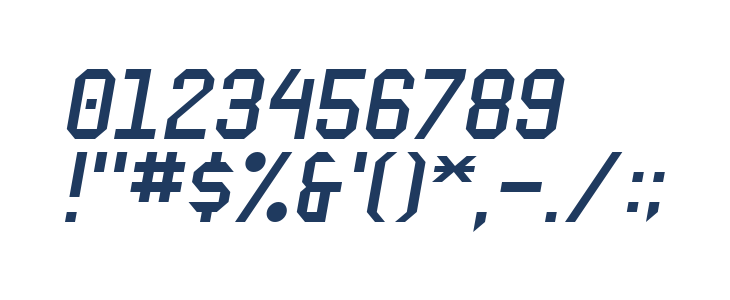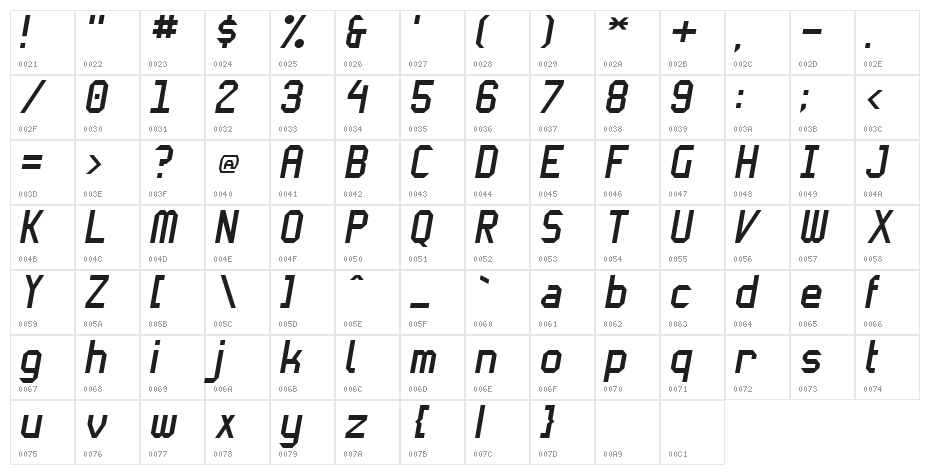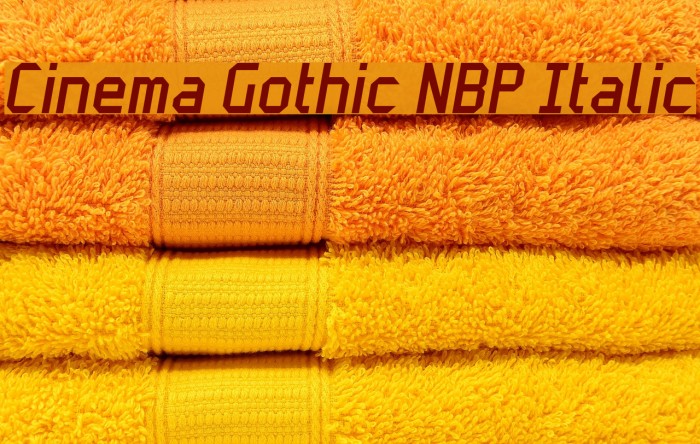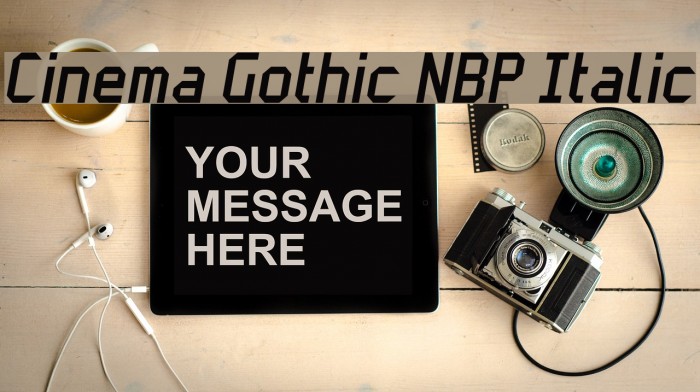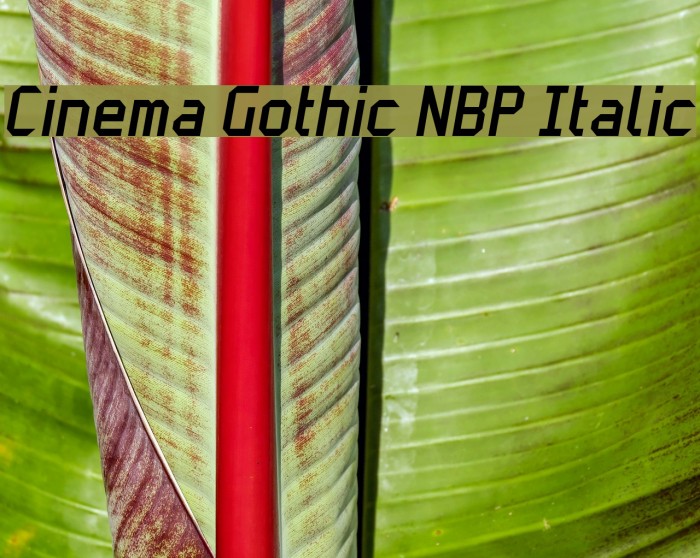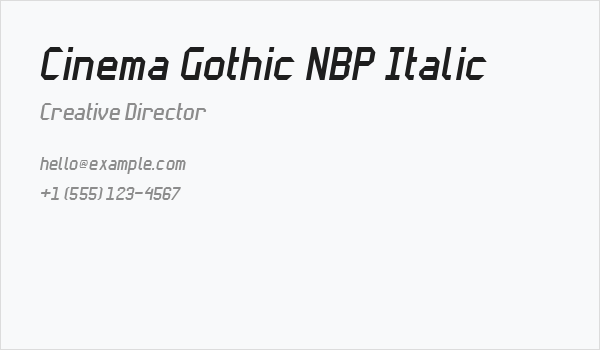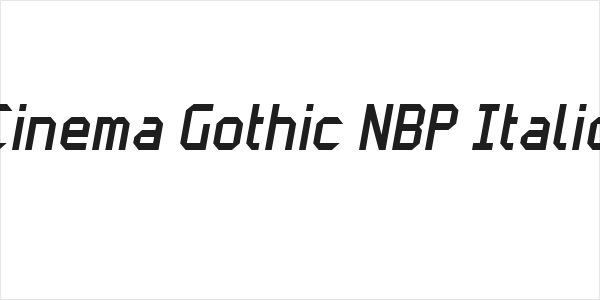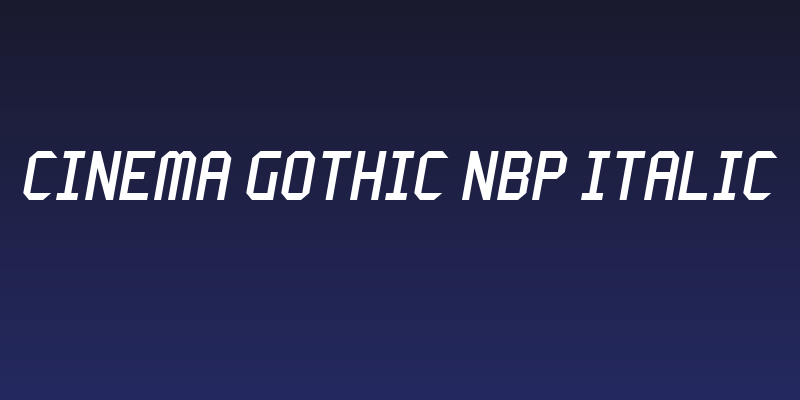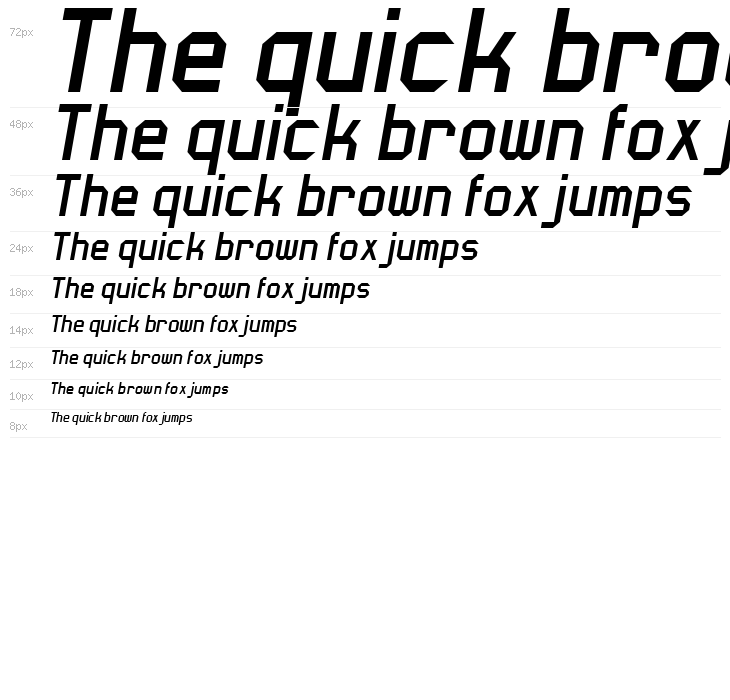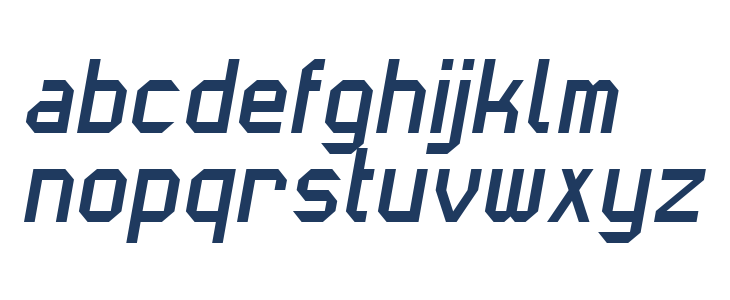
Cinema Gothic NBP Italic Font
Cinema Gothic NBP Italic Description
This font features a bold, angular design with a distinct geometric style. The characters are slightly slanted, giving an italicized appearance that adds a dynamic and modern touch. The uppercase letters are tall and narrow, while the lowercase letters maintain a consistent height, creating a cohesive look. The numerals are equally bold and angular, ensuring readability and impact. Special characters are designed to match the overall aesthetic, with sharp edges and a futuristic feel. This font is ideal for projects that require a strong, modern, and slightly edgy appearance.
| Proposed Projects | Ideal for branding, posters, video game graphics, and futuristic designs. |